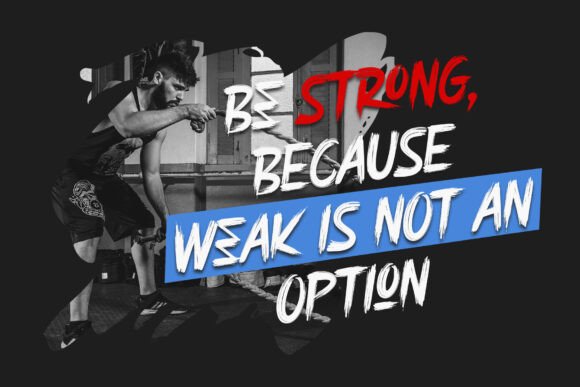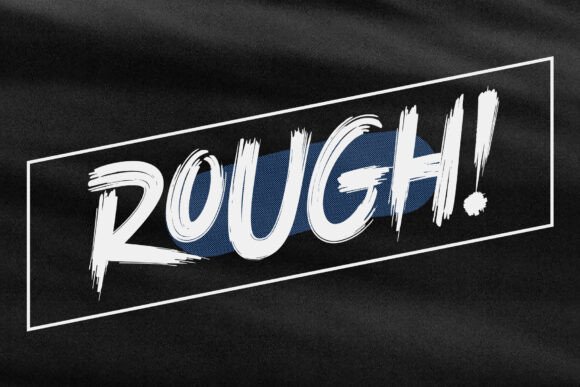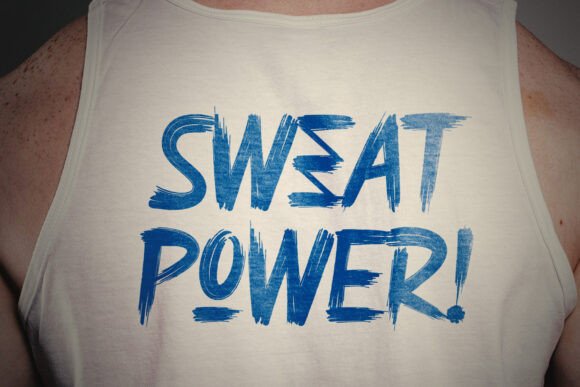
Smoke Thorn Font
Smoke Thorn is a brush font with a rough style and sharp texture that delivers a bold and strong impression. This font is perfect for posters, branding, packaging, or other designs that require a striking and distinctive look. With dynamic strokes, Smoke Thorn adds a modern and edgy creative touch.